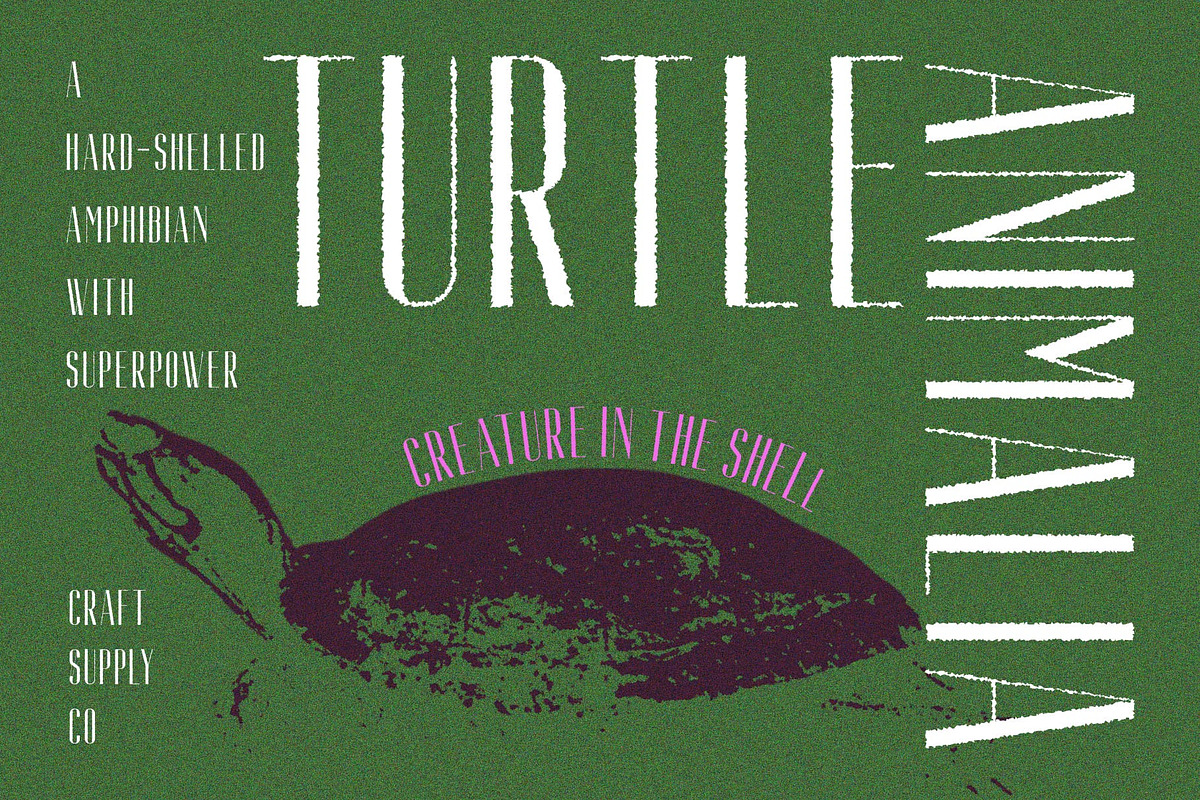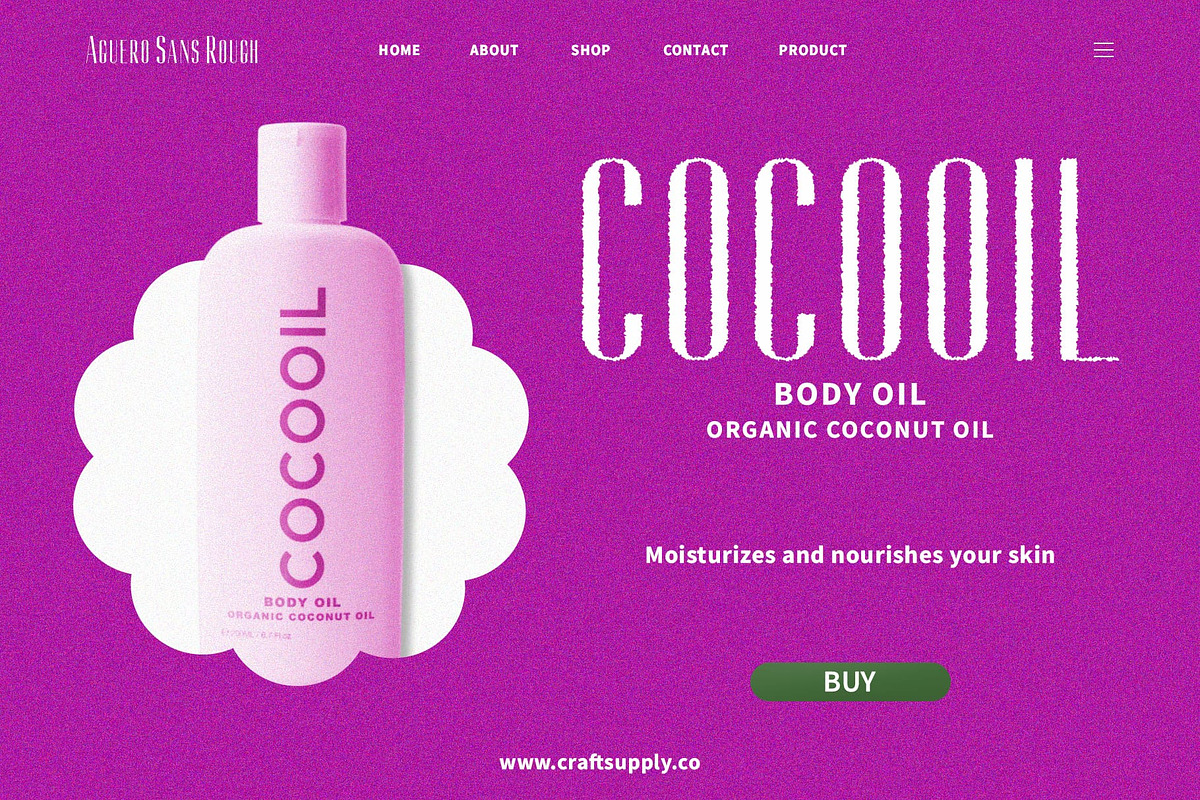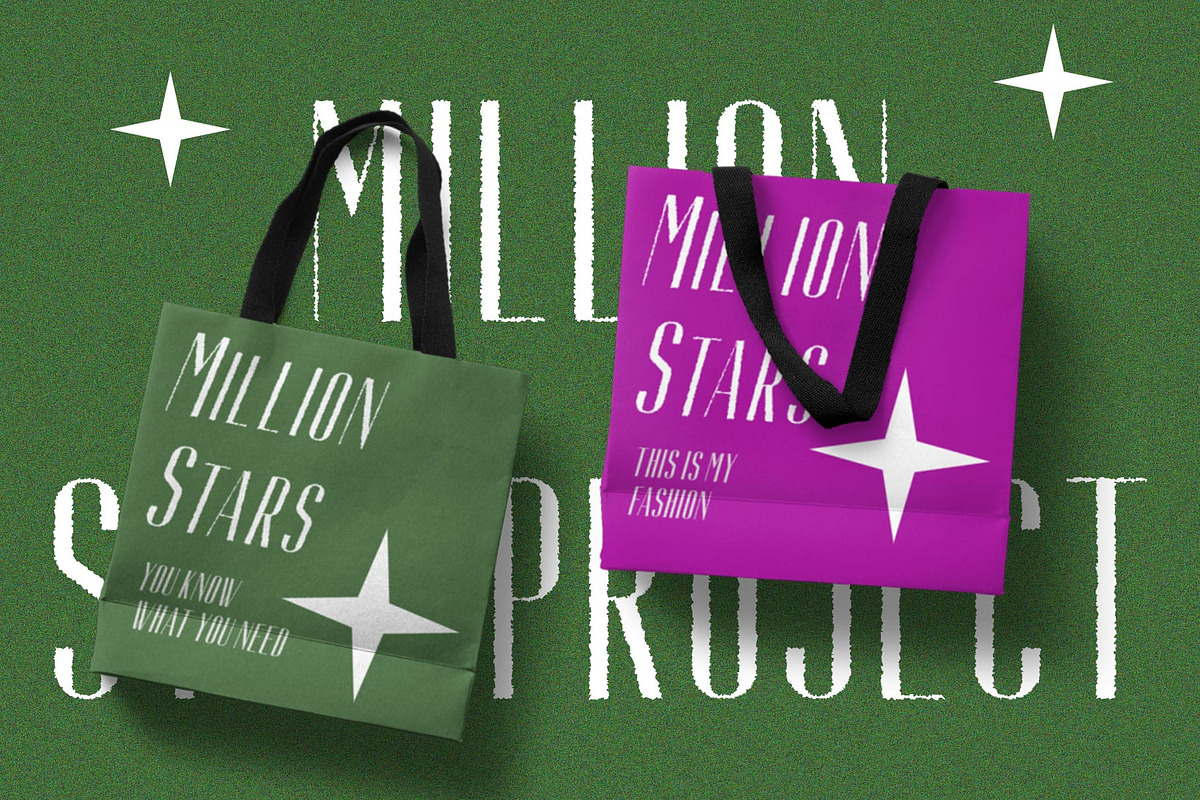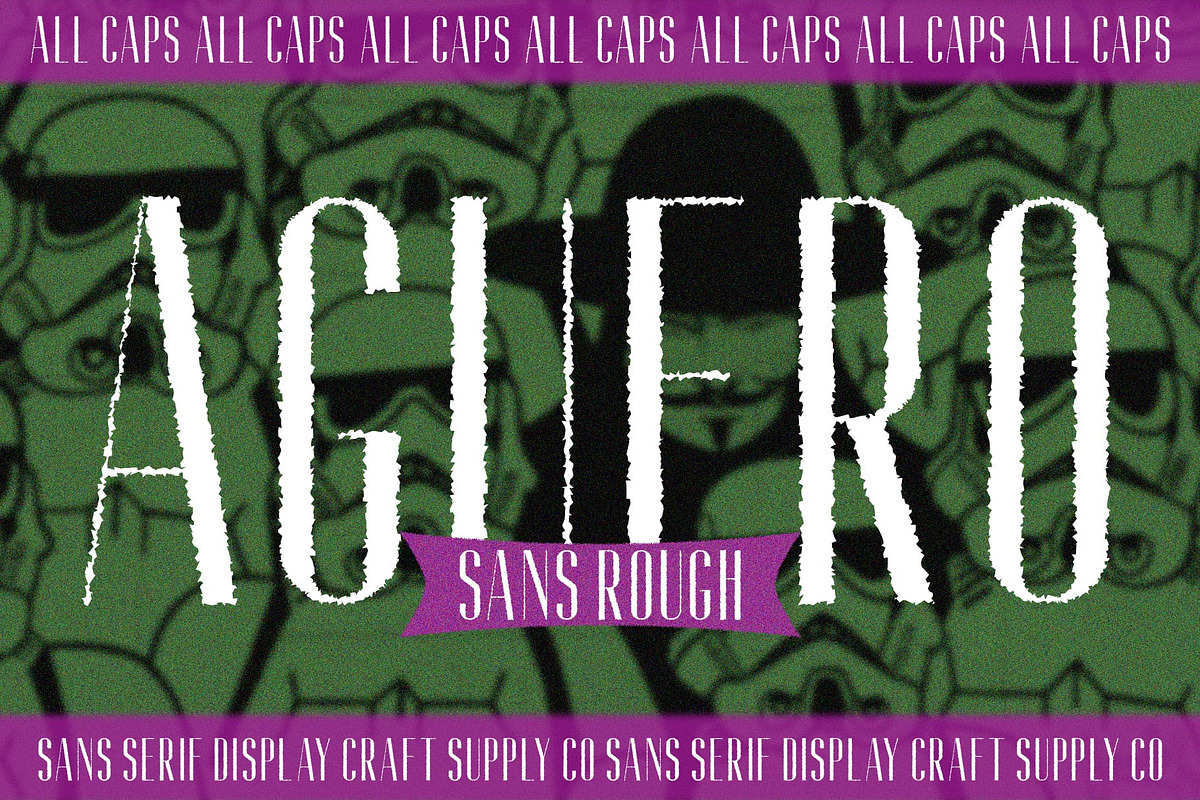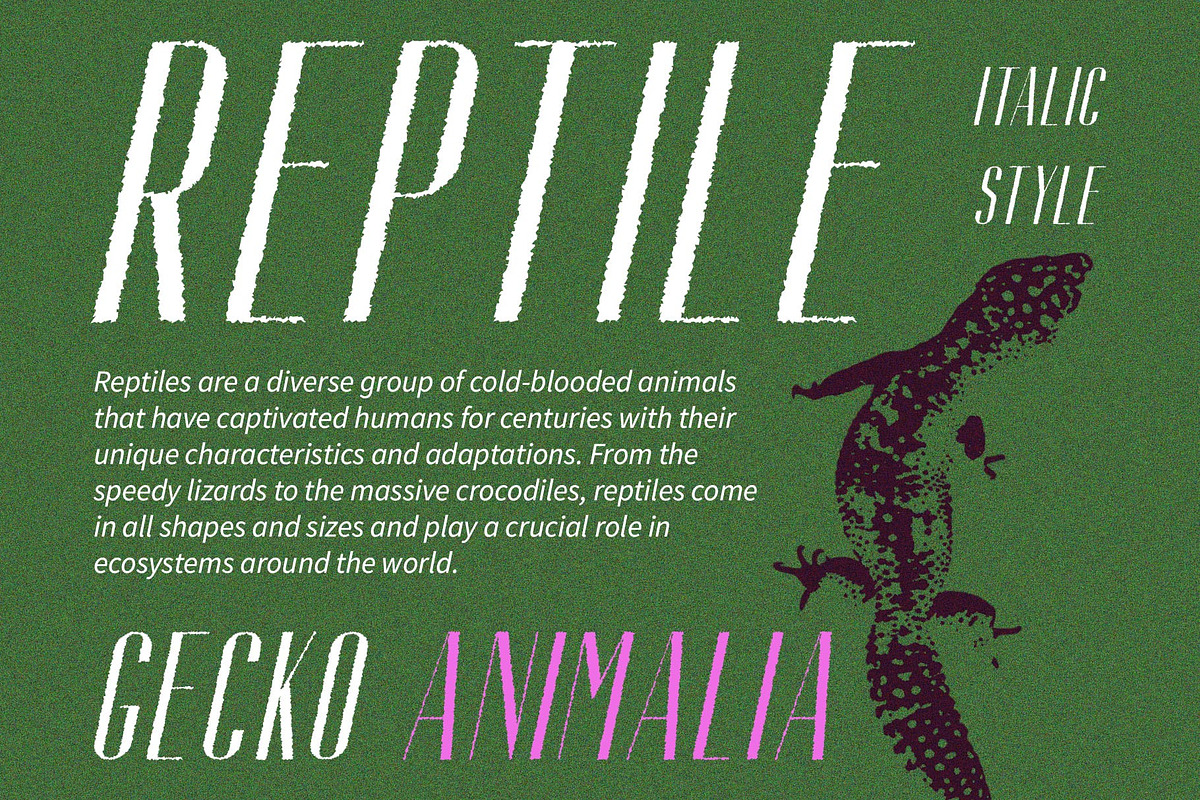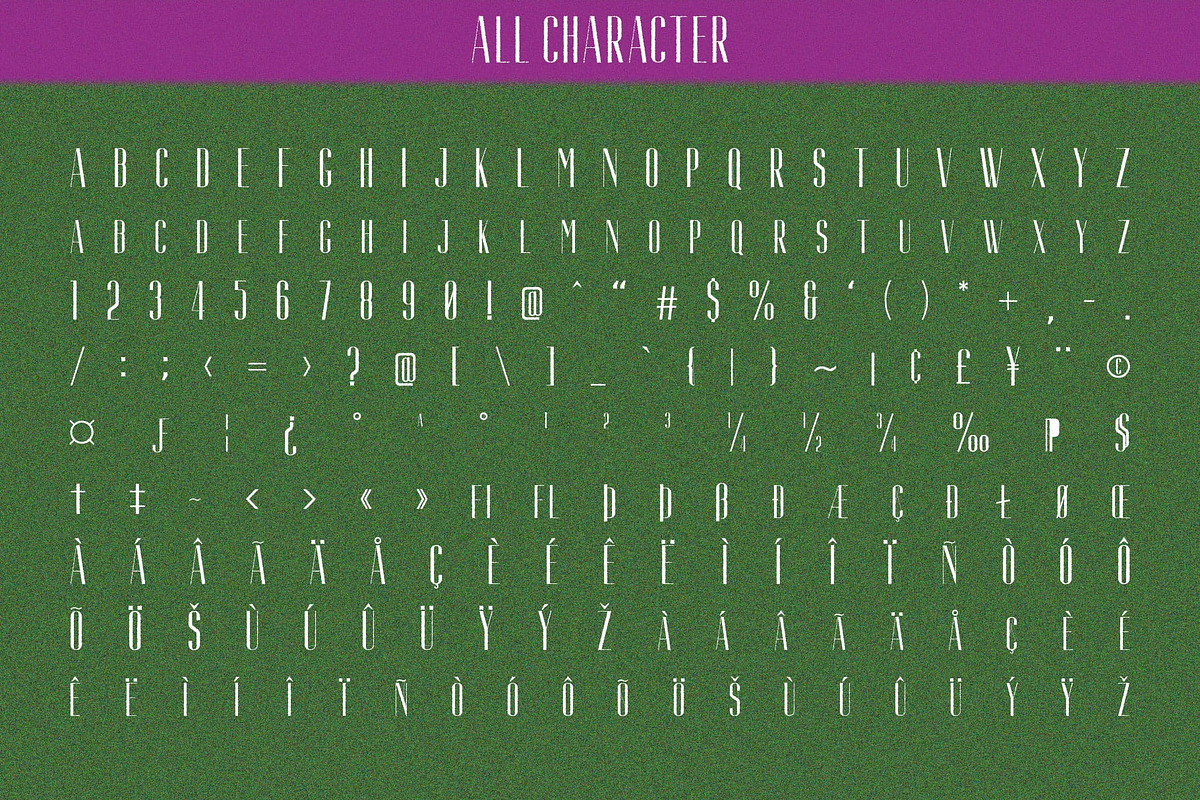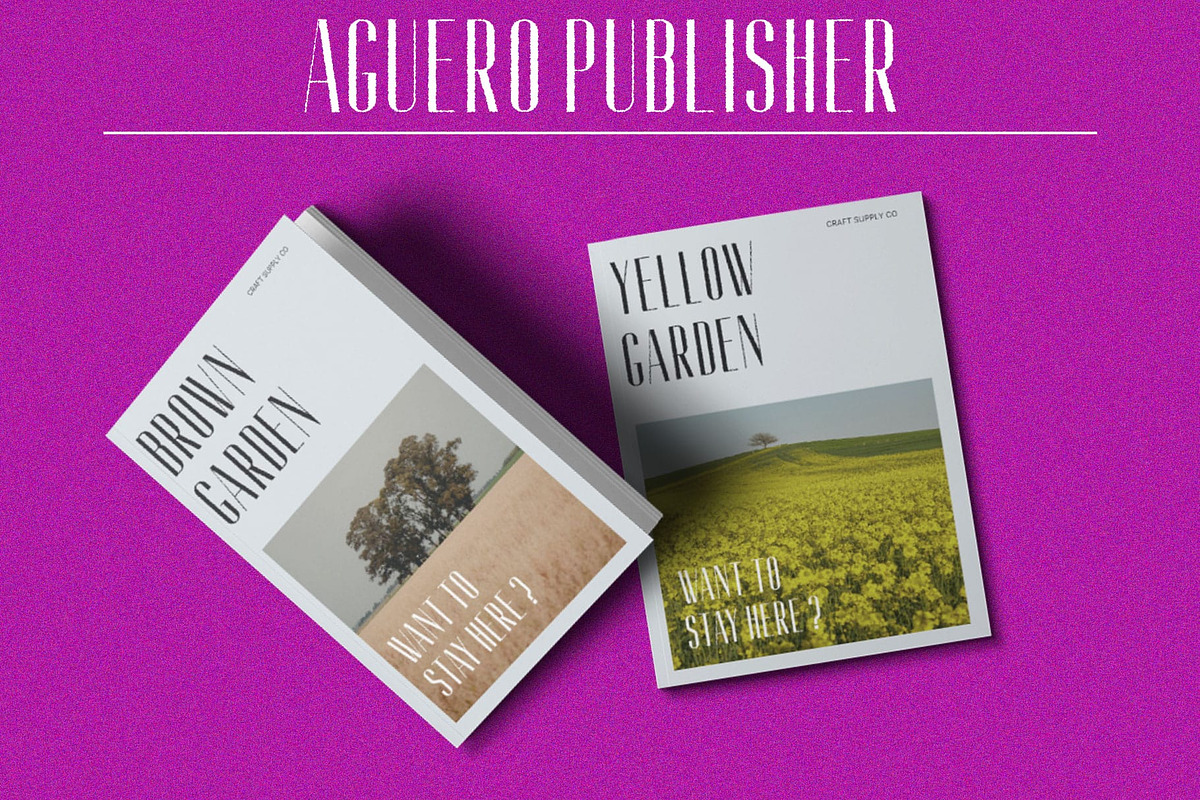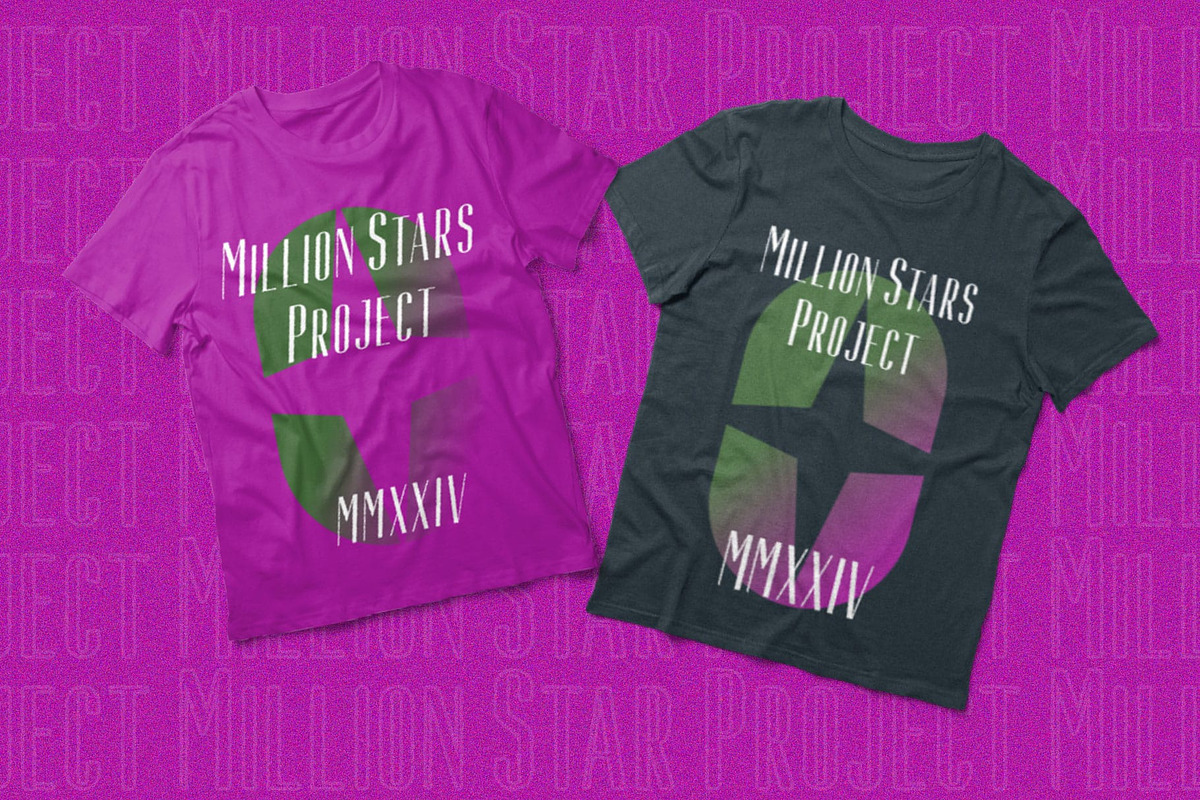
Aguero Sans Rough
Aguero Sans Rough: Bold and Textured Display Font
Dynamic Sans Serif Design Aguero Sans Rough boasts a dynamic sans serif design that is both modern and impactful. Its condensed form and high contrast captivate attention instantly.
Rough Texture Effect The font is enhanced with a rough texture effect, adding depth and personality to each character. This rough aesthetic gives Aguero Sans Rough a unique and edgy vibe, perfect for eye-catching displays.
Ideal for Display Use With its condensed form and high contrast, This font is tailor-made for display purposes. Whether used in headlines, banners, or posters, it demands attention and makes a bold statement.
Versatile Application Despite its bold appearance, This font is versatile in its application. From branding and packaging to advertising and social media graphics, it adds a touch of texture and character to any design project.
Boldness with Texture This font combines the boldness of a condensed sans serif with the texture of rough effects, making it a standout choice for impactful displays. Its versatility and edgy aesthetic make it a valuable asset for designers seeking to make a statement.